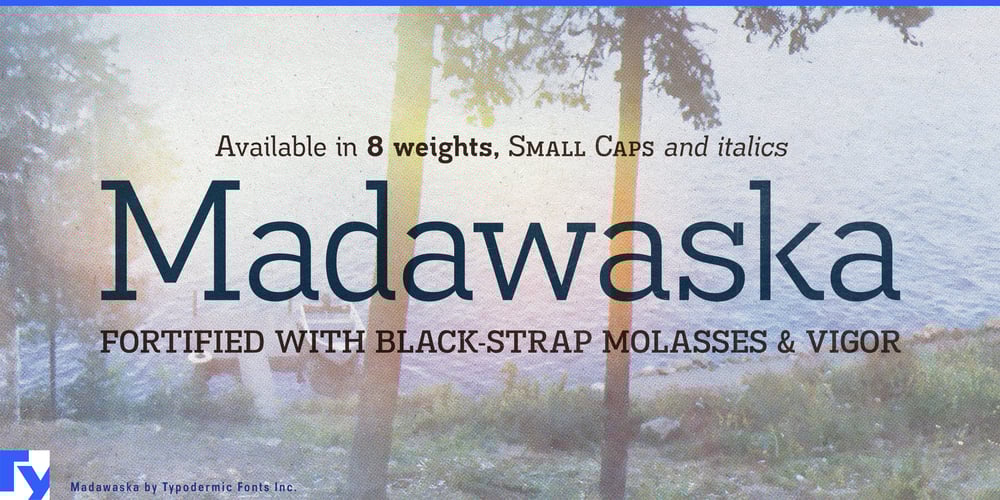
Madawaska Font Family was designed by Ray Larabie and published by Typodermic. Madawaska contains 34 styles and family package options. Forged in the untamed wilderness of Canada, Madawaska stands as a testament to the raw power and enduring spirit of the North. This commanding slab-serif typeface doesn’t just demand attention—it seizes it with the tenacity of a seasoned trapper and the grace of a seasoned lumberjack.Madawaska’s stocky, weighty design channels the very essence of the Canadian landscape. With eight robust weights and their italic counterparts, this typeface family offers a versatility that spans from whisper-quiet forest trails to thunderous rapids. Each character is crafted with the precision of a master woodworker, resulting in letterforms that are as sturdy and reliable as the oldest growth pines. But Madawaska isn’t content with mere strength. It pushes the boundaries of typography with its two scuzzy effect styles: Madawaska Jeans and Madawaska River. These unique variations harness the power of custom textured OpenType ligatures, infusing your designs with the gritty authenticity of well-worn denim and the unpredictable energy of whitewater. It’s more than just a font—it’s a typographic adventure.For those navigating the digital frontier, Madawaska comes equipped with small-cap styles that stand as firm as a mountain face against the winds of web and application deployment. These characters carry the full weight of Madawaska’s personality, ensuring your message remains unshakeable across all platforms. Madawaska speaks the language of the land, and its roots run deep. Its extensive character set supports a vast array of Latin-based European writing systems, allowing your rugged message to resonate from the fjords of Norway to the pampas of Argentina. Whether you’re crafting copy in Finnish or forging headlines in Portuguese, Madawaska delivers your words with unwavering authority. Embrace the spirit of the wilderness in your designs. Let Madawaska be the voice that cuts through the noise, the typeface that stands resolute against the ever-changing tides of trends. From rugged outdoor brands to hard-hitting editorials, Madawaska infuses every project with a dose of untamed authenticity.Don’t just choose a font—choose a legacy. Add Madawaska to your typographic arsenal today and watch as it transforms your designs from mere words into powerful declarations, each letter a testament to the enduring strength of classic Canadian craftsmanship.